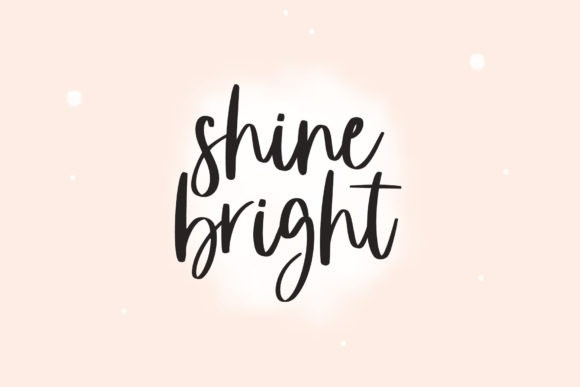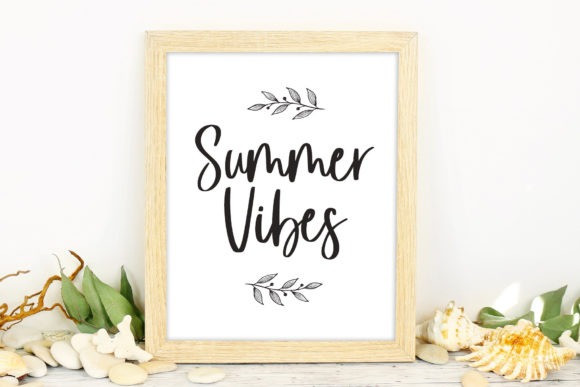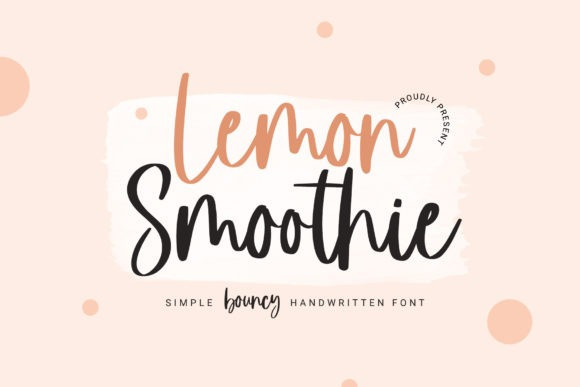
Lemon Smoothie Font
Lemon Smoothie Font is a cute and bouncy handwritten font. Its cuteness and quirkiness made this font can be used for a wide range of design projects, especially designs that need handwritten touch.
Lemon Smoothie is the perfect font for any project, such as wedding invitations, t-shirt design, crafting, sticker, sublimation, and many more.